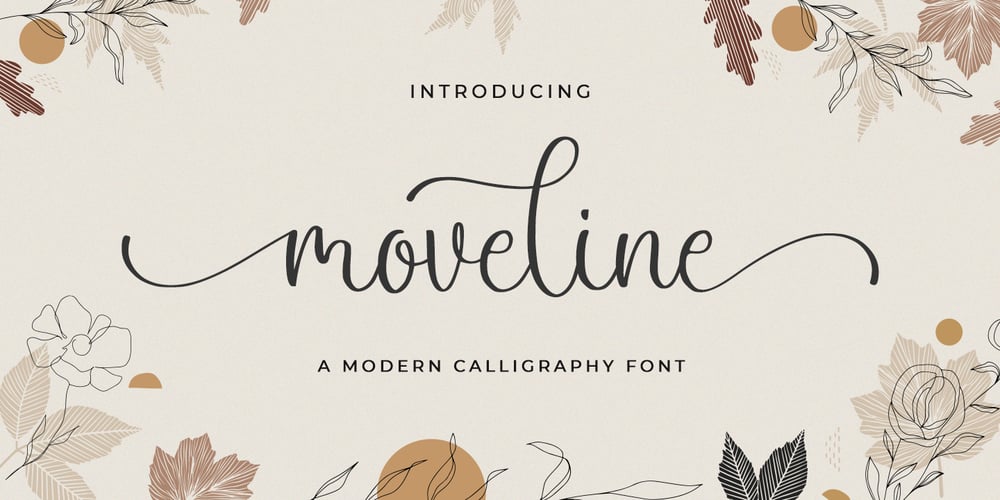
Moveline
Moveline font
Moveline Font Family was designed by Novia Himatunnisa and published by Nissa Nana. Moveline contains 1 styles and family package options. Moveline is a beautiful script font. Its refined style will give an elegant and modern look to any of your creative projects such as logos, branding, invitations, stationery, wedding designs, social media posts, and many more!